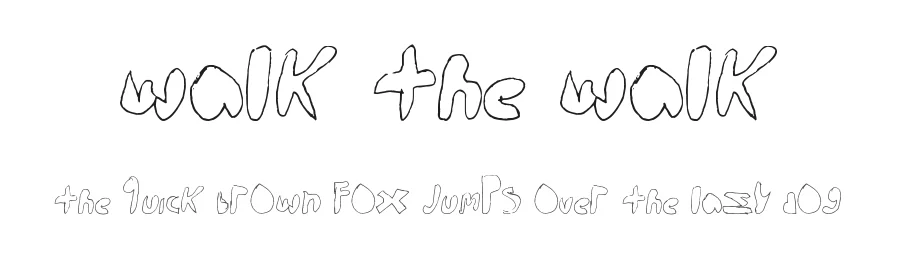
About Hangup Font
Hangup is a decorative font designed by Billy Argel Fonts ®. It includes 145 glyphs, a regular weight, OTF (CFF) format, and 156 languages. Hangup is free to download; check the license details on this page before commercial use. Decorative fonts like Hangup work best for logos, posters, packaging, and standout headlines.
| Designer | Billy Argel |
Hangup Font is a decorative font that shines as a display or heading face. Pair it with a clean sans-serif or serif font for body text — the contrast creates a clear hierarchy while the two styles stay balanced and easy to read.
Hangup Font
Hangup Font is a decorative typeface by Billy Argel Fonts ®, ideal for logos, invitations, branding, and creative projects.